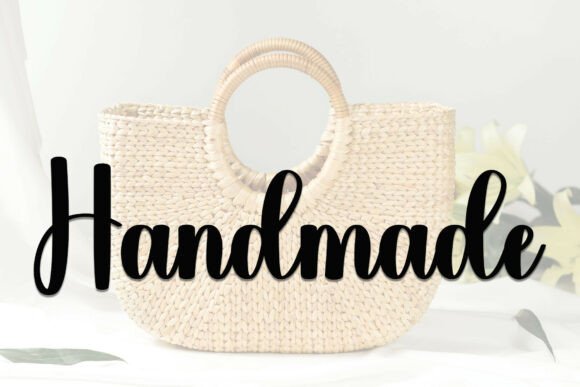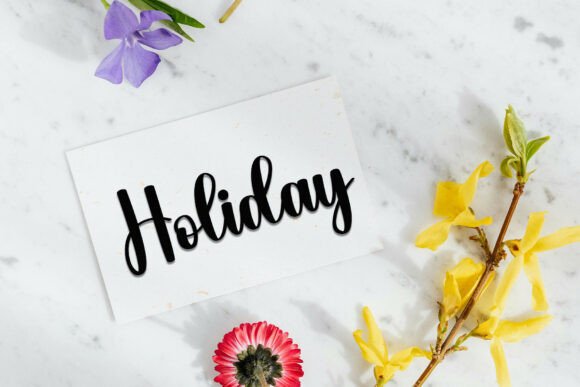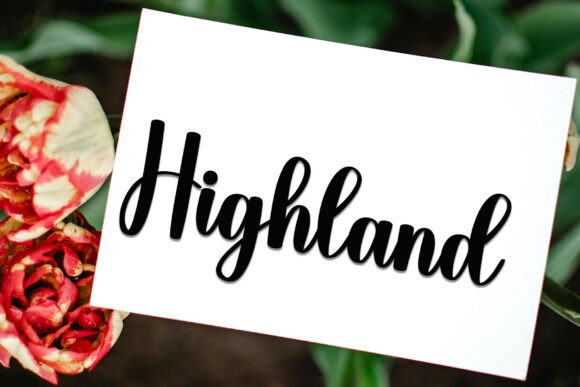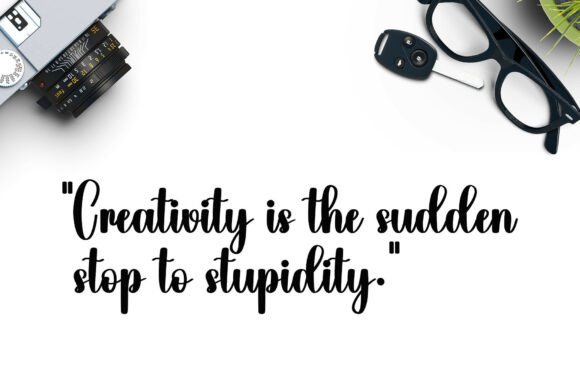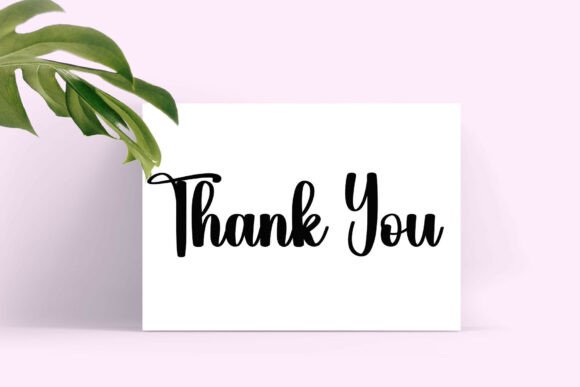
Introduction to Autumn Christmas Font
Autumn Christmas is an enchanting handwritten font.
This versatile script font has a wide spectrum of applications ranging from greeting cards to headlines and is guaranteed to add a romantic feel to your next project .
Key Features of Autumn Christmas Font